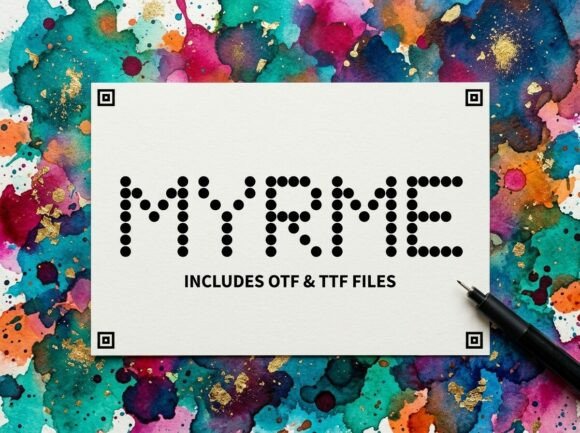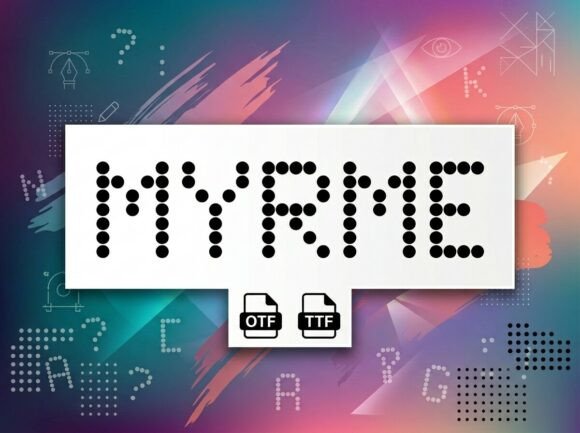
Introduction to Myrme Font
Have you ever stared at a blank canvas, eager to bring your creative vision to life, only to be stumped by the perfect font? The search for the perfect typography can be overwhelming, but what if I told you that there’s a game-changing font that’s about to revolutionize your creative projects?
Meet the Myrme Font, a stunning decorative display font that’s designed to be the centerpiece of any layout. With its unique artistic elements and strong character, this font is perfect for creators who want to break away from the ordinary and deliver a high-end, professional aesthetic without compromising on personality. Whether you’re working on a logo, title, or packaging design, the Myrme Font is an invaluable design resource that’s sure to elevate your work.
Key Features of Myrme Font
- High-quality design resource perfect for creative projects, including logos, branding, and graphic design.
- Unique, hand-crafted design elements that add a touch of elegance and sophistication to your creative projects.
Honest Review: Myrme Font
I recently came across the Myrme Font, a unique and elegant design resource that caught my attention. As a designer, I’m always on the lookout for high-quality fonts to elevate my creative projects. The Myrme Font does not disappoint.
- Sleek and modern design
- May not be suitable for more playful or casual projects
- Limited character set (not ideal for complex text-based projects)
- Not as widely supported as other popular fonts
Overall, the Myrme Font is a solid addition to any designer’s toolkit. While it may have some limitations, its unique design and free download make it a worthwhile resource for creative projects. With careful consideration of its use cases, the Myrme Font can be a valuable asset for designers looking to elevate their work.
Tips for Getting the Most Out of Myrme Font
The Myrme Font is a versatile design resource that can be used in a variety of creative projects, such as logos, business cards, brochures, and presentations. It’s also a great option for social media graphics, blog posts, and website headers.